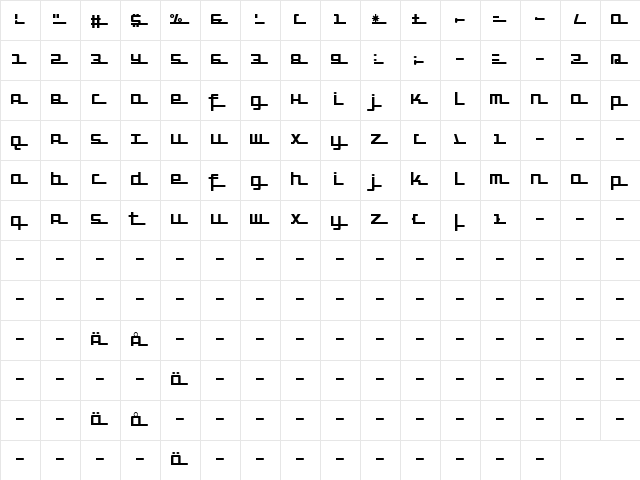
SuperHighway Regular
Design Context for SuperHighway Typeface
SuperHighway is a composed and adaptable typeface that performs quietly and consistently across a wide range of design contexts.